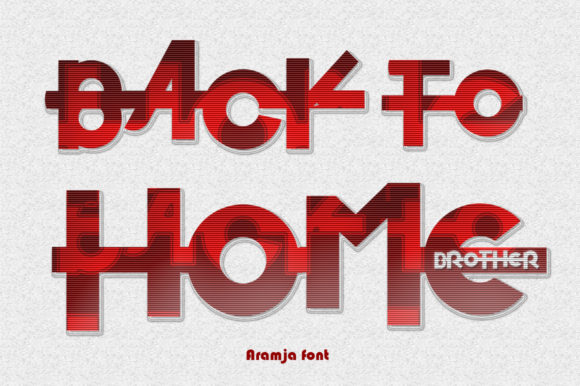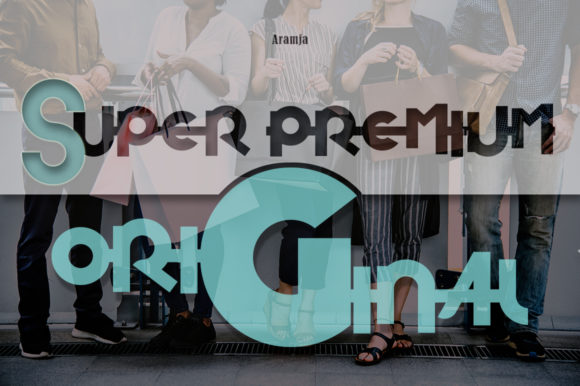
The Art of Creativity: Unlocking the Power of Aramja Font
Have you ever stared at a blank page or screen, struggling to bring your creative vision to life? We’ve all been there – the blank slate staring back, taunting us with its emptiness. But what if you had the perfect tool to unlock your imagination and turn that blank space into a masterpiece? Enter Aramja Font, a game-changing display font that’s about to revolutionize the way you think about creativity.
Aramja Font is more than just a font – it’s a key to unlocking your unique style and turning your ideas into stunning works of art. Whether you’re a seasoned designer or a DIY enthusiast, Aramja Font offers a level of versatility and expressiveness that’s hard to find in other fonts. With its fun and original style, Aramja Font is the perfect tool for designers looking to add a touch of personality to their projects.
Aramja Font Key Features
- Font Family: Aramja is a sans-serif font family designed for modern and clean typography.
- Font Size: The font family is available in multiple weights, ranging from Light (100) to Bold (700), allowing for flexibility in design and layout.
- Unique Characteristic: Aramja’s distinctive x-height and letter spacing create a unique reading experience, making it suitable for both body text and display typography.
Aramja Font Review
Overall, I’m impressed with the Aramja Font. It’s a unique, modern sans-serif font that works well in various contexts.
- Modern aesthetic: The font has a sleek, contemporary feel that’s perfect for modern designs and websites.
- Legibility: Aramja is highly legible, making it easy to read even at smaller font sizes.
- Font weight options: The font comes in multiple weights, allowing for flexibility in design and text styling.
- Limited language support: The font might not be optimized for languages with complex scripts or non-Latin alphabets.
- No italic or oblique styles: While the font offers multiple weights, it lacks italic and oblique styles, which might be a drawback for some designers.
The Aramja Font is a solid choice for designers seeking a modern, legible sans-serif font. While it has some limitations, its strengths make it a valuable addition to any design toolkit.
Tips: Use Aramja Font for titles and headings to add a touch of elegance. Experiment with different font sizes and colors to create visual hierarchy.
Tips: Use Aramja Font for logotypes, icons, and graphics to add a touch of sophistication. Experiment with different font sizes and colors to create visual interest.
Tips: Use Aramja Font for titles, headings, and body text to create a cohesive look. Experiment with different font sizes and colors to create visual hierarchy.
Aramja Font is ideal for:
- Branding and identity design
- Graphic design and visual communications
Remember to use Aramja Font consistently throughout your design to create a cohesive and professional look.
Comparison to Aramja Font: Great Vibes Font has a more refined and polished look compared to Aramja Font. While Aramja Font has a unique, hand-drawn feel, Great Vibes Font is more streamlined and versatile.
Comparison to Aramja Font: Alex Brush Font has a more organic and expressive feel compared to Aramja Font. While Aramja Font has a unique, hand-drawn quality, Alex Brush Font is more fluid and dynamic.